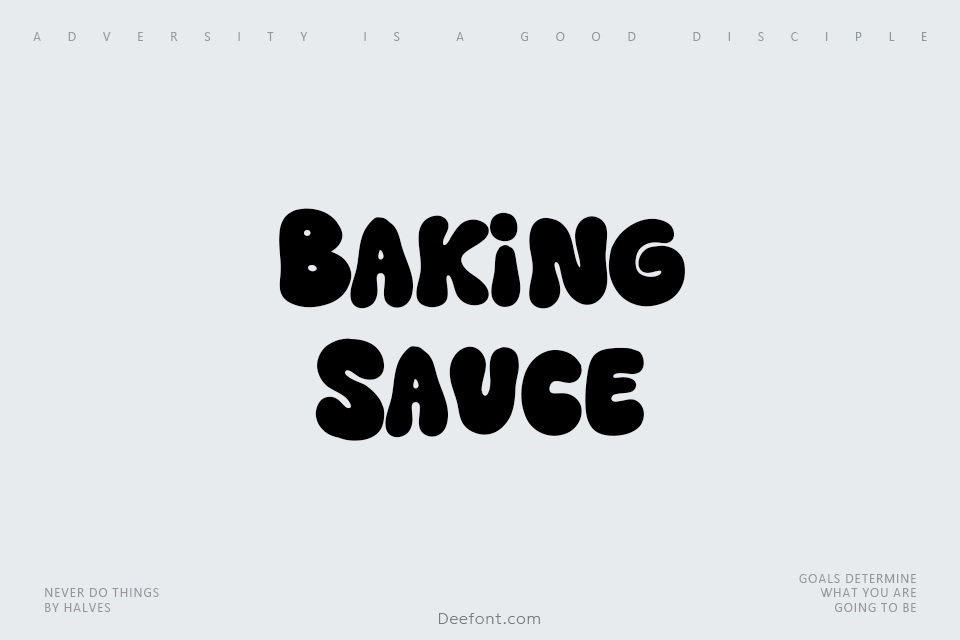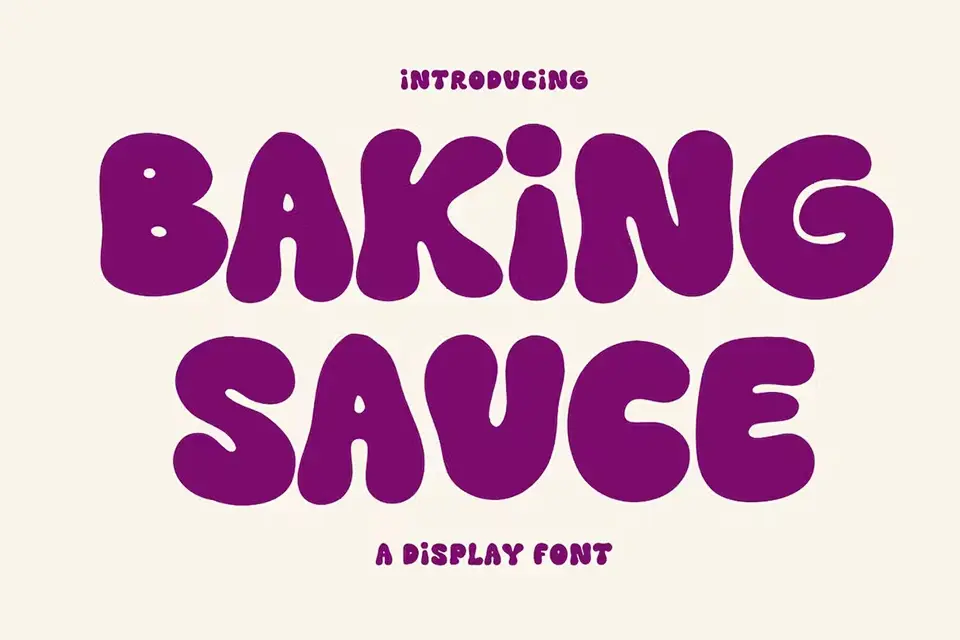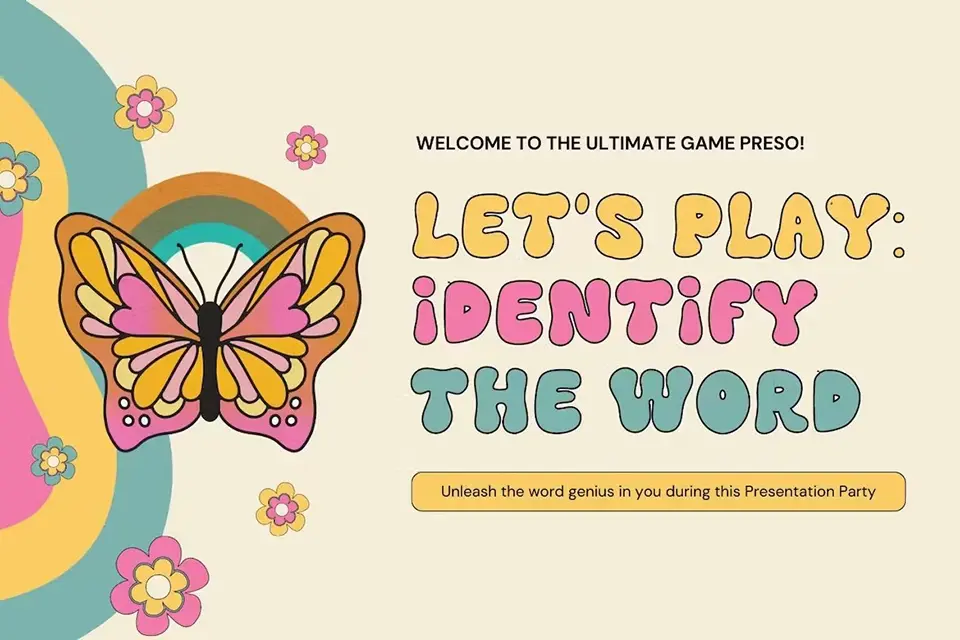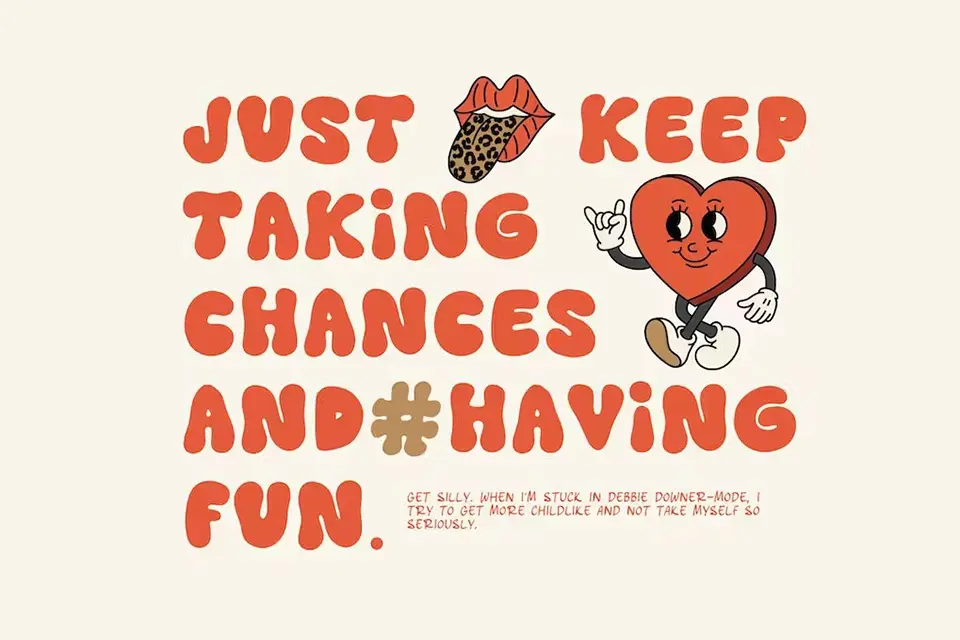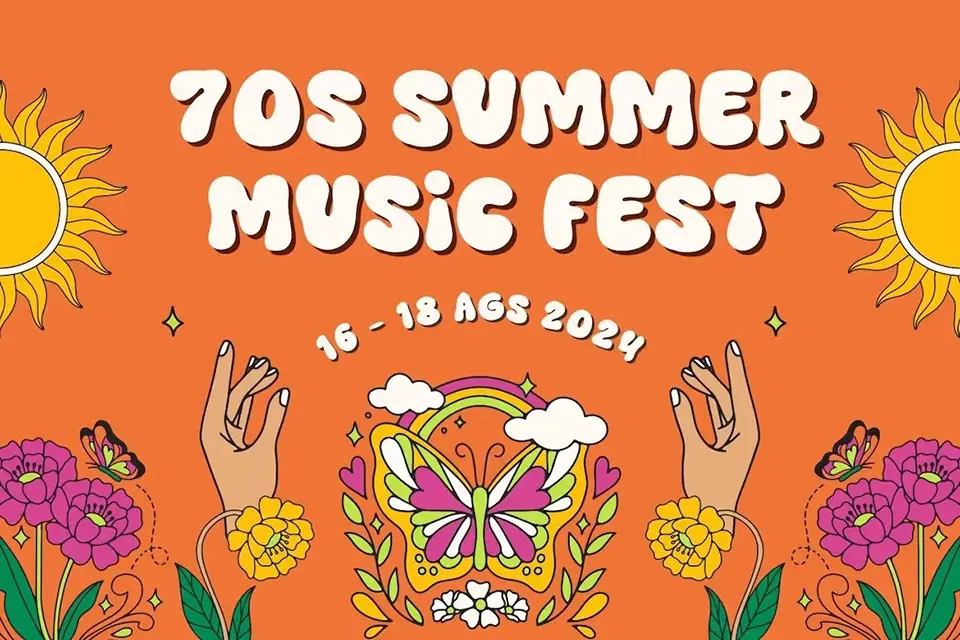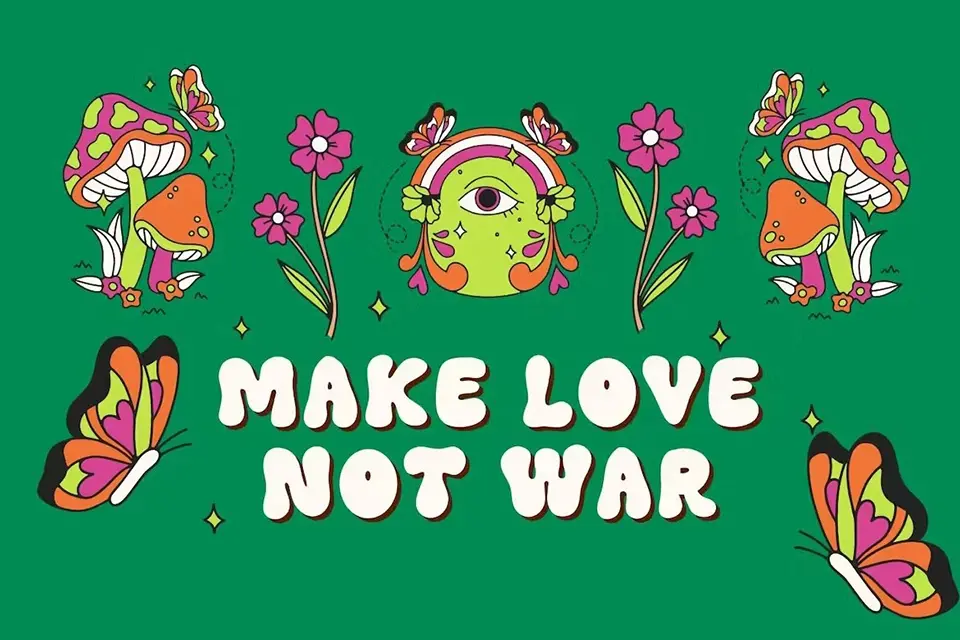
Baking Sauce Font
Baking Sauce is a retro-modern handwritten display font that brings playful charm and nostalgic vibes to your creative projects. With its bubbly, fat letterforms and bold presence, this font captures the carefree essence of the 70s, 80s, and 90s. Perfect for eye-catching posters, merchandise, logos, and vintage-themed designs, Baking Sauce infuses projects with whimsical energy and contemporary style. Its casual, cartoon-like personality makes it ideal for any design requiring fun, memorable typography that stands out.